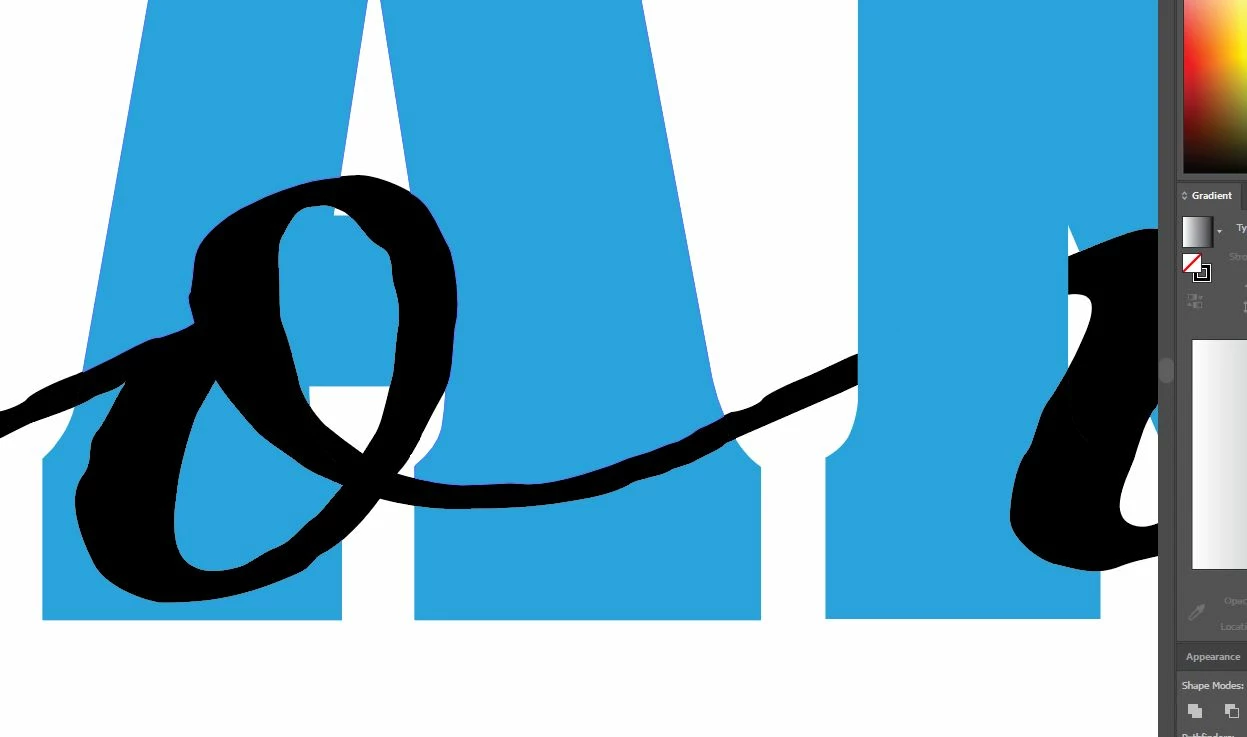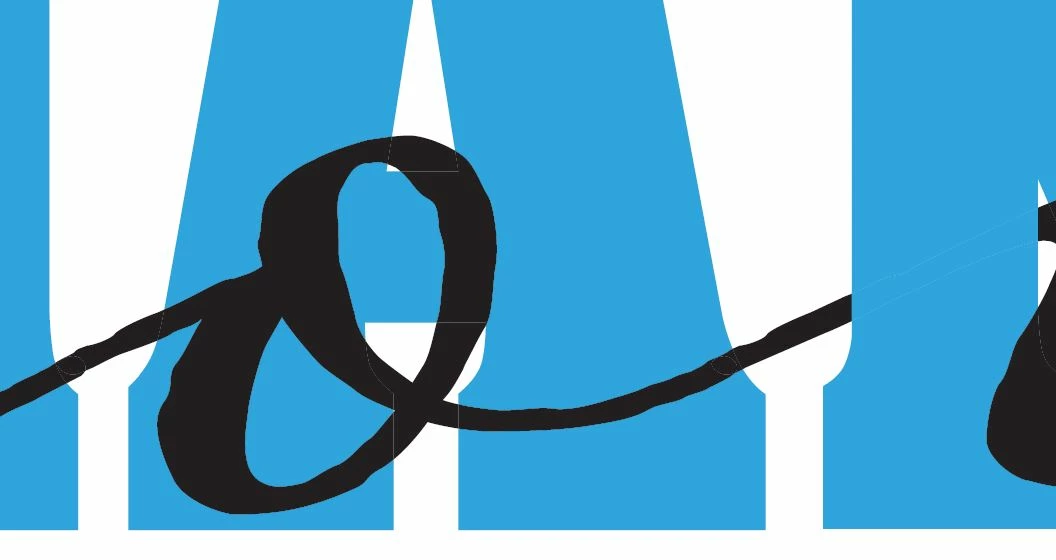
White Outlines Around Font When Exporting
I made a graphic where a script font weaves in and out of a blocky serif font.
Process:
I converted the block text to outlines, then added the script font on top and converted it to outlines as well. I ungrouped and selected everything, and used the "Divide" function in the Pathfinder window.
As you can see, everything looks ideal in Illustrator. However, when I export to .pdf or even .png, you can see tiny white outlines around the sections that were "divided".
Is there some trick within the export to prevent it from doing this?
You could try if selecting all black objects and Unite them helps.
Or Rasterize them in Illustrator before exporting to an image.
Depending on the actual appearance/combination of the fonts, I believe there can be more suitable ways than Divide.
If you have more suitable ways that don't produce the result that is the reason I posted, I would be tremendously helpful if you elaborated on exactly what those methods were.
With the Unite solution from Ton, there is less/no need for other ways.
But in a simple case as the one shown where the cutout/knockout part in front of the block letter ends at straight sides on the latter, with Smart Guides being your friends you can:
1) With the Pen Tool Click at the intersections between block letter and script text, first on one side then on the other to from two straight paths;
2) Lock the block text and select each of the new paths and Object>Path>Divide Objects Below; this will cut your script text in three;
3) Select the middle script text path above the block letter and delete it, then Group the remaining parts of the script text.
You could try if selecting all black objects and Unite them helps.
Or Rasterize them in Illustrator before exporting to an image.
This was exactly what I needed.
I selected all the black elements and united them via pathfinder. Worked like a charm!!!